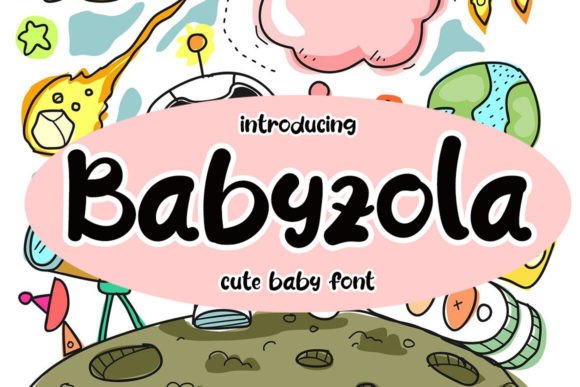
Welcome to the world of Babyzola, a captivating script font family that will effortlessly add a touch of elegance and charm to your design projects. Created by the talented Eddygoodboy, Babyzola stands out with its remarkable flexibility and functionality.
Step into a realm where creativity knows no bounds. With its diverse range of weights and styles, Babyzola empowers you to craft a myriad of design elements. From captivating headlines that command attention to elegant body text that flows with grace, Babyzola effortlessly adapts to your vision.
Experience the allure of Babyzola as it transforms your designs into visual masterpieces. Its meticulously crafted curves and delicate details impart a touch of sophistication and whimsy that will leave a lasting impression. Unleash your imagination and let Babyzola guide you on a journey of artistic expression.
More than just a font, Babyzola is an invitation to embark on a creative adventure. Its versatility knows no limits, making it the perfect choice for a variety of projects. Create logos that exude personality, branding materials that radiate professionalism, and social media graphics that captivate your audience.
With Babyzola, you hold the key to unlocking a world of design possibilities. Its intuitive design and user-friendly interface make it a joy to work with. Bask in the ease of use and let your creativity soar as you witness Babyzola effortlessly elevate your designs to new heights.